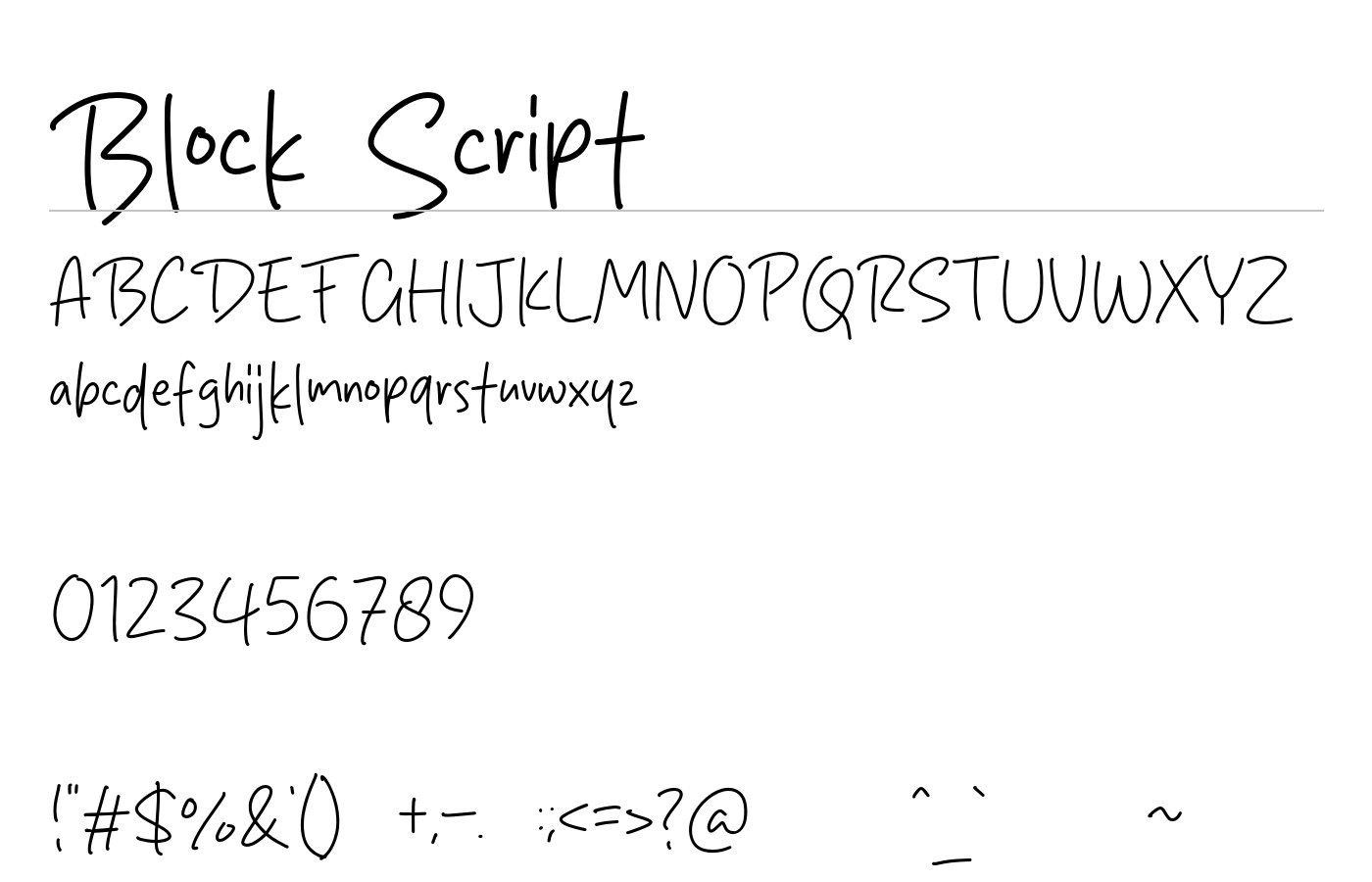
Block Script is a casual, hand-drawn sans serif font with a playful and friendly personality. Its thin, slightly irregular lines and tall x-height give it an approachable, informal feel that works well for creative projects, personal branding, and lighthearted designs. This font shines in logos, social media graphics, and headlines where a unique, handwritten touch is desired.
Block Script Font
About Block Script Font